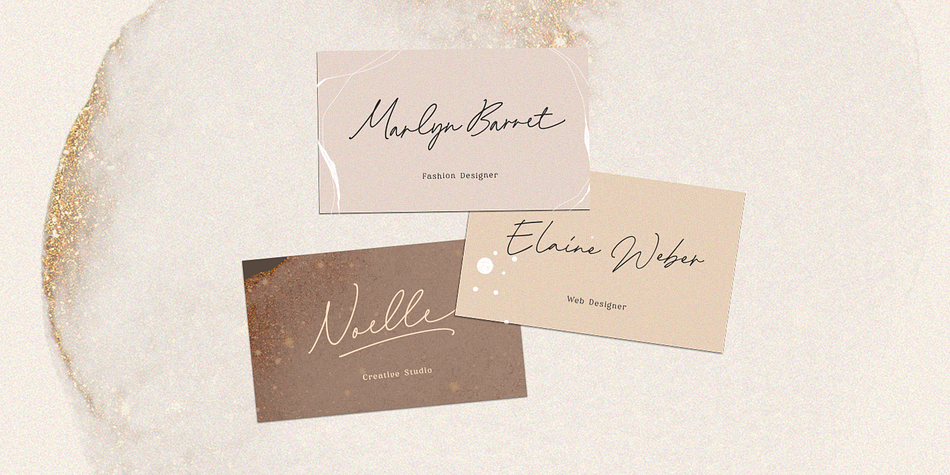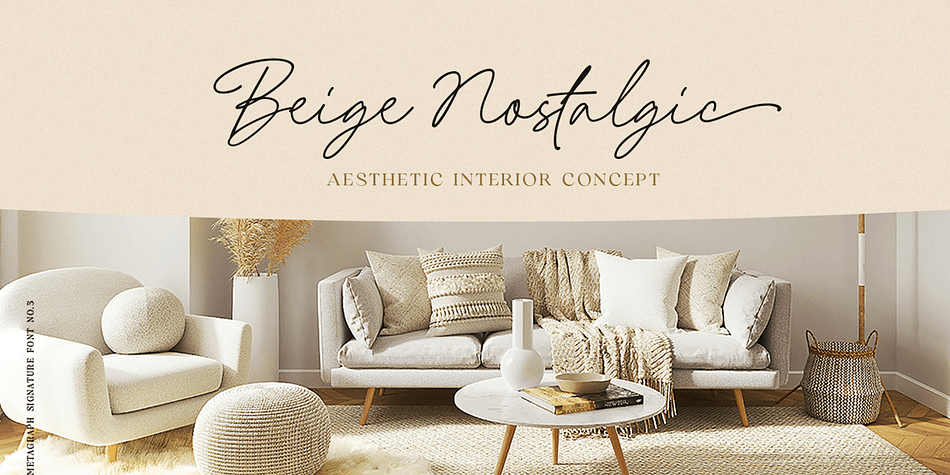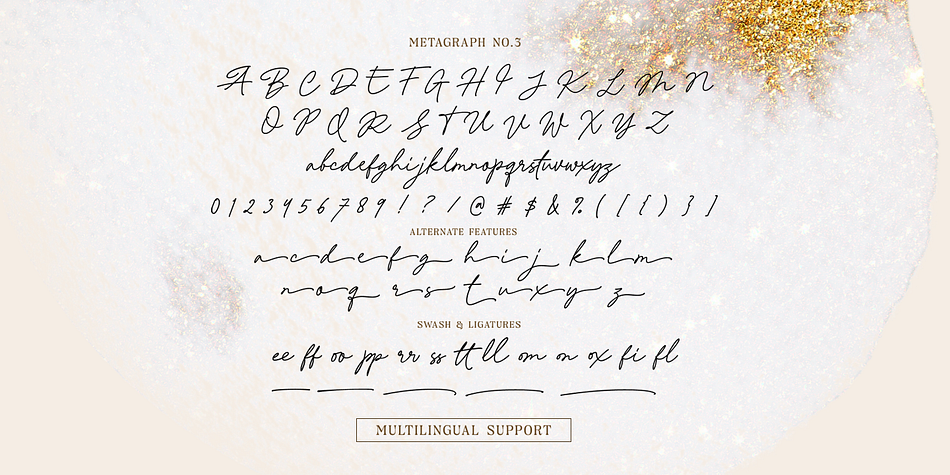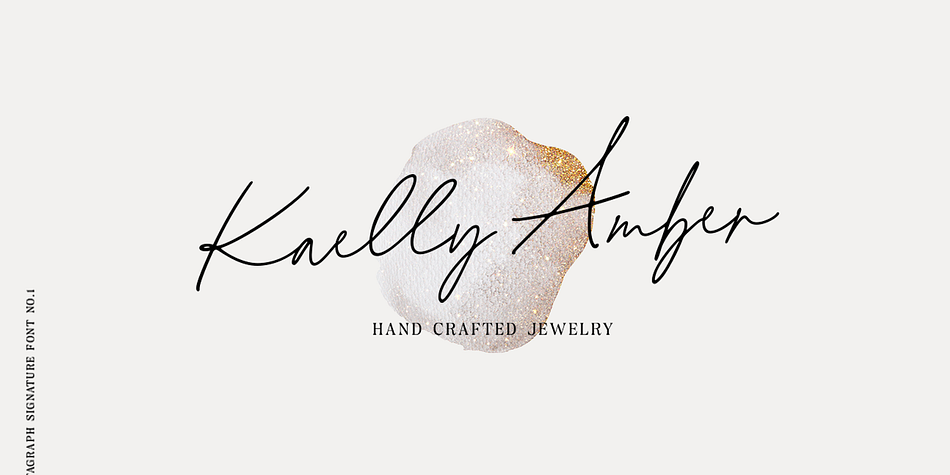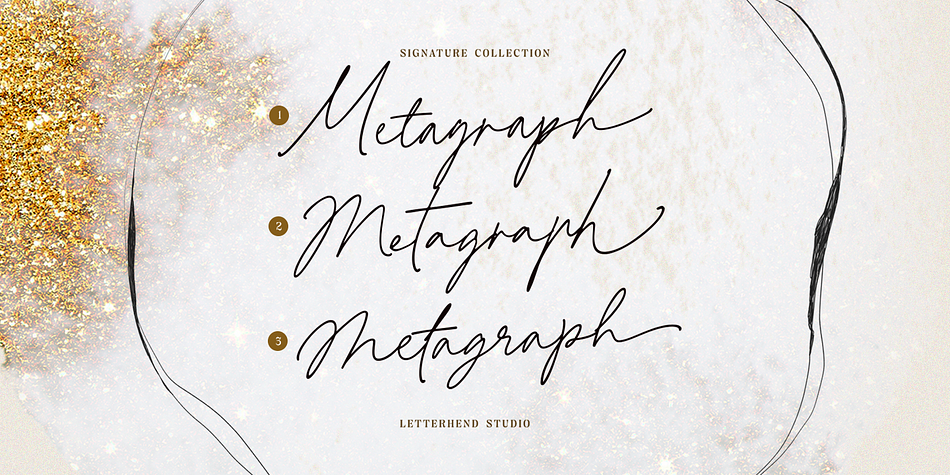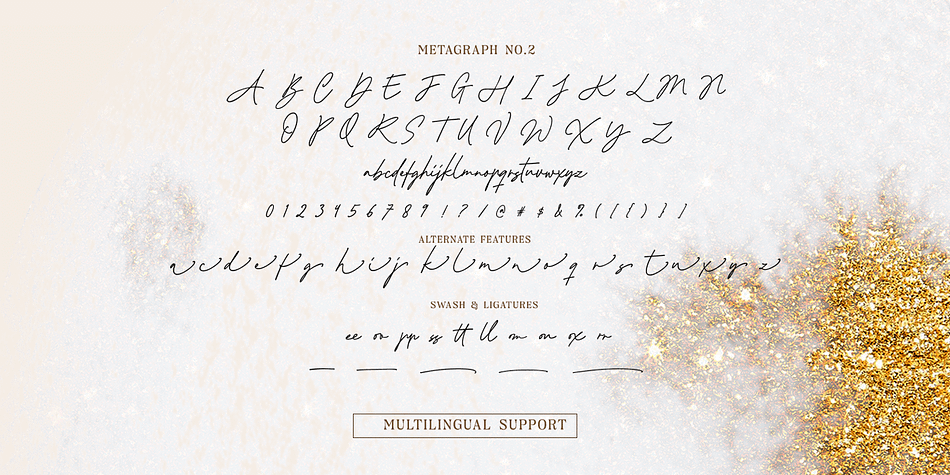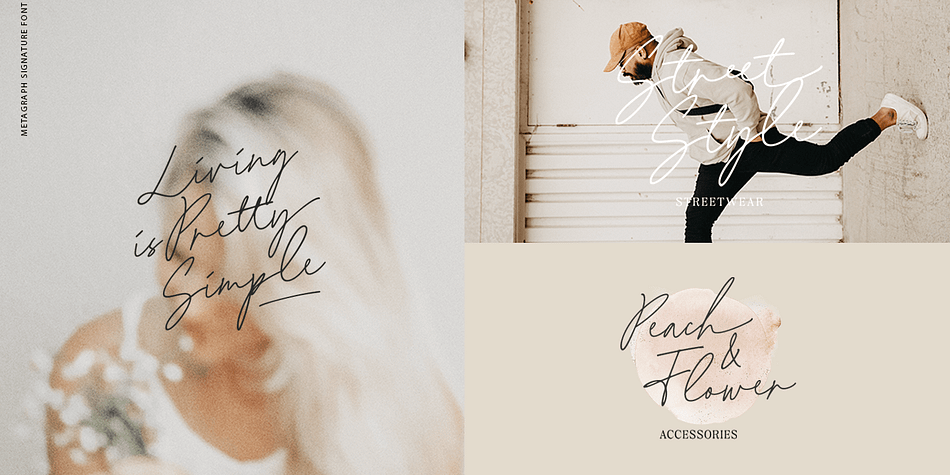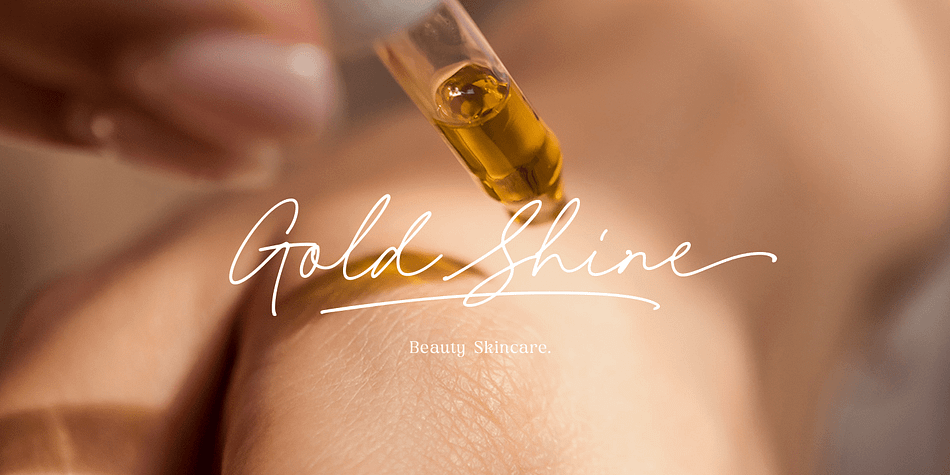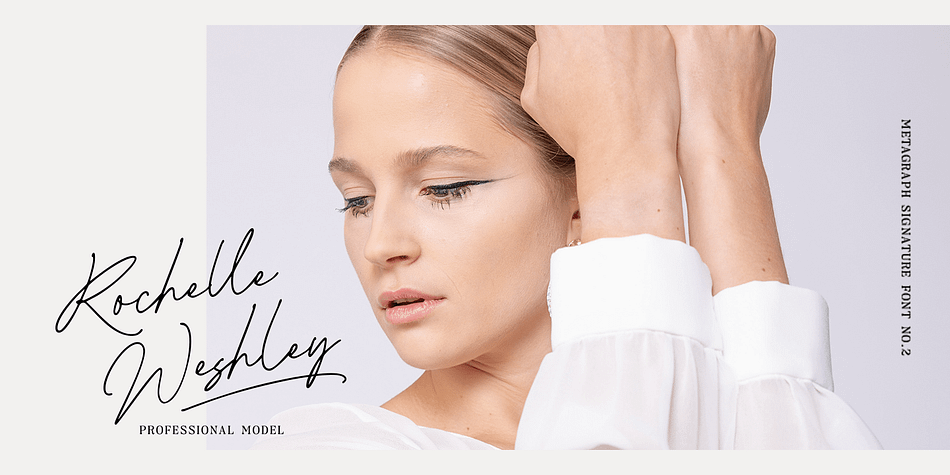
Designed by Hendry Juanda, Metagraph is a modern calligraphy and script font family. This typeface has three styles and was published by Letterhend Studio.
Metagraph is a beautiful signature script based on manual hand writing. This typeface comes with 3 fonts which you can choose from. This type of font perfectly made to be applied especially in logo, and the other various formal forms such as invitations, labels, logos, magazines, books, greeting / wedding cards, packaging, fashion, make up, stationery, novels, labels or any type of advertising purpose.
- 3 style fonts
- alternates and ligatures